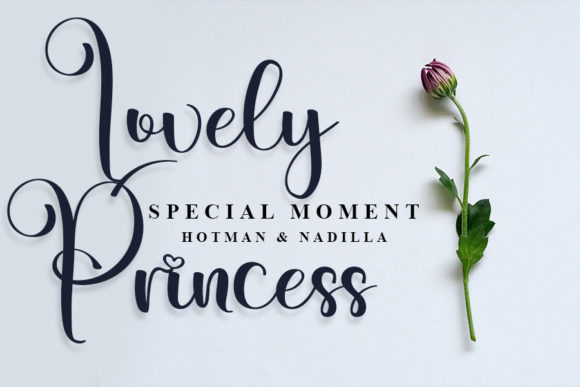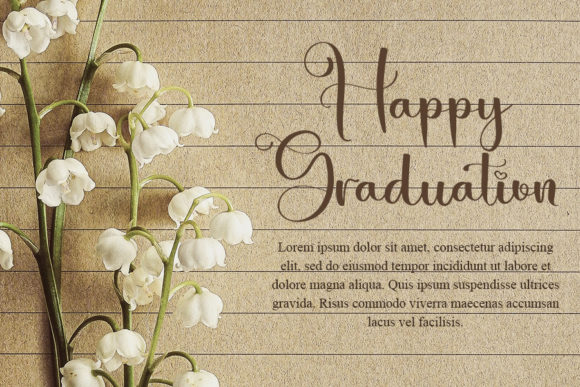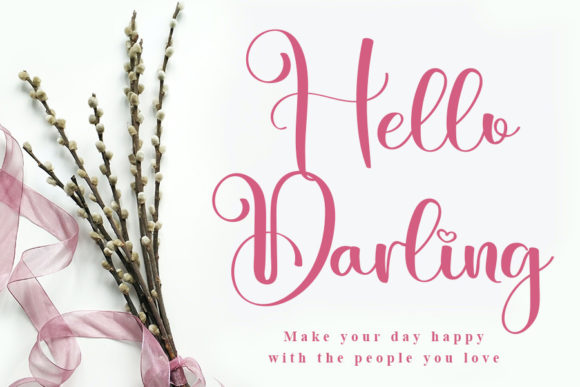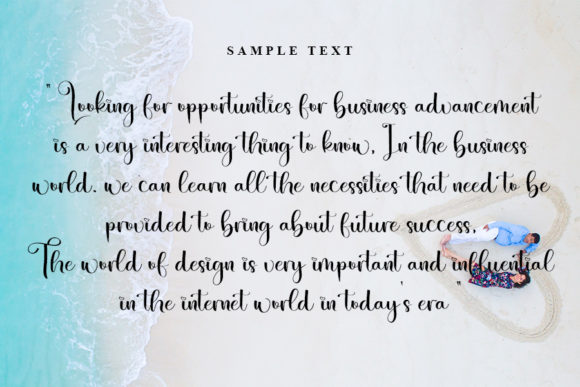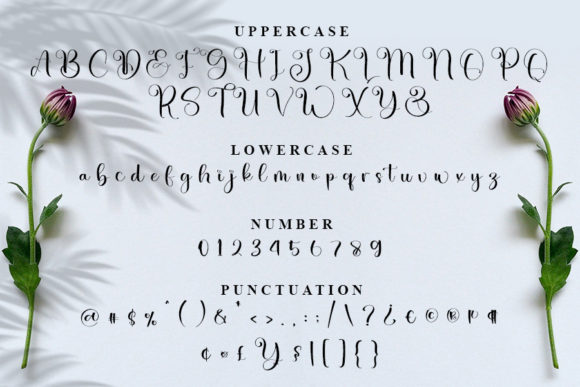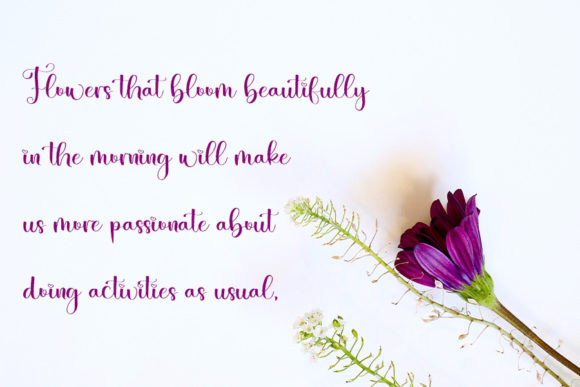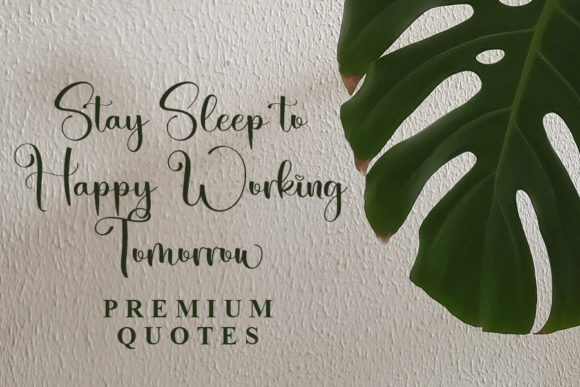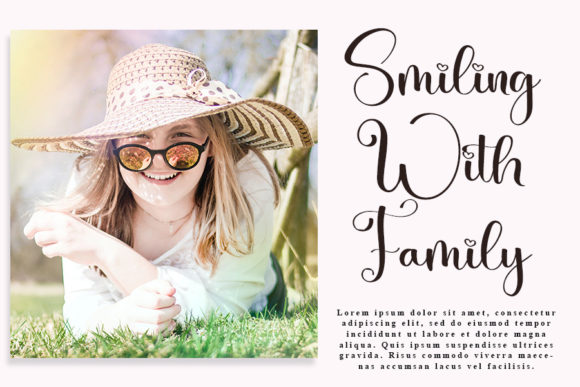
Darling Font
About Darling Font
Introducing “Darling,” a stylish handwritten font that emanates a contemporary atmosphere and impeccable form, drawing inspiration from timeless classic calligraphy. Crafted with balance and variety, this font is designed to elevate the beauty of your projects, providing a touch of sophistication.
Darling’s stylish handwritten script brings a modern flair while preserving the grace of classic calligraphy. The font is meticulously designed to strike a perfect balance, making it versatile and well-suited for a range of creative applications. Whether utilized in logos, branding, invitations, or any other project, Darling enhances the visual appeal with its timeless yet contemporary aesthetic.
Picture Darling gracing your branding materials, adding a touch of sophistication and modernity to your corporate identity. Envision it enhancing wedding invitations, creating an elegant and refined atmosphere for the celebration. The font’s impeccable form ensures that each character contributes to the overall visual harmony, making it a valuable asset for designers seeking a fusion of classic and contemporary.
In essence, Darling is more than just a font; it’s a design statement that seamlessly combines timeless classic calligraphy with a contemporary edge. Its stylish and balanced handwritten script is an invitation to enhance the beauty of your projects with a touch of sophistication. Choose Darling to infuse a stylish and impeccable form into your work, making each creation a testament to the enduring elegance of handwritten design.